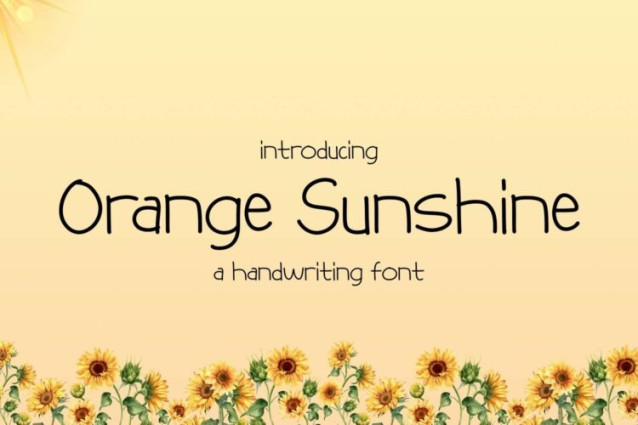
Orange Sunshine Font
Orange Sunshine Font is a simple and friendly handwritten font. Its natural and unique style makes it incredibly fitting to a large pool of designs. The only limit is your imagination!